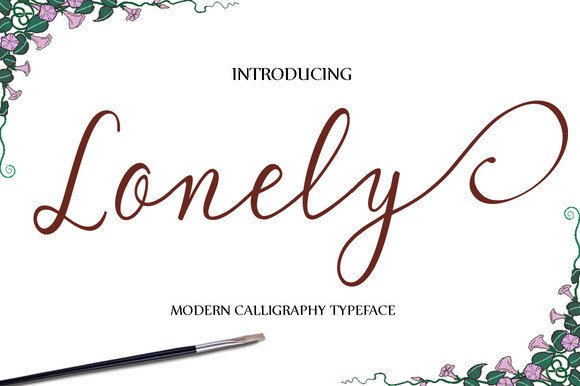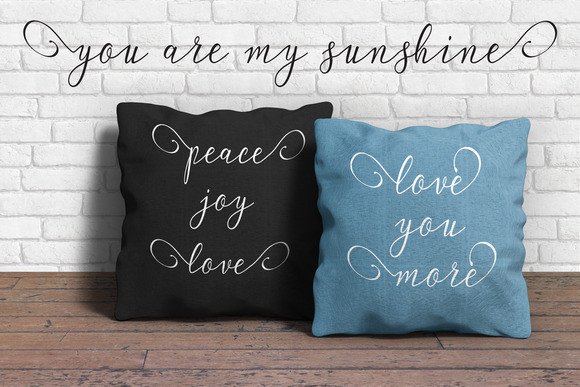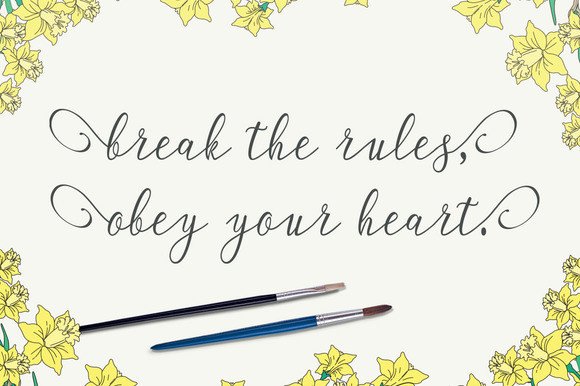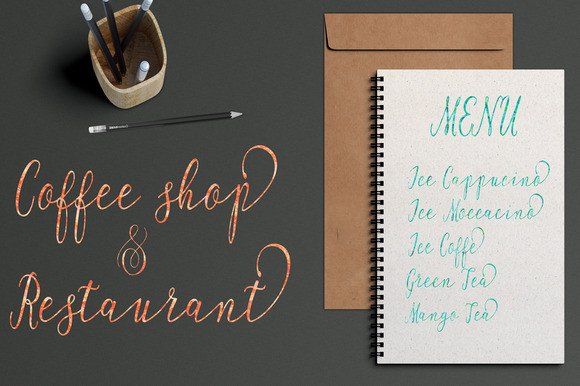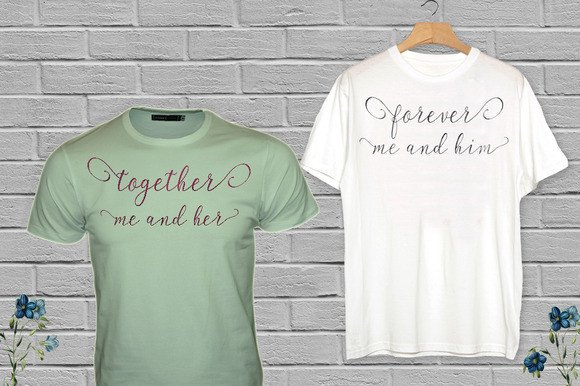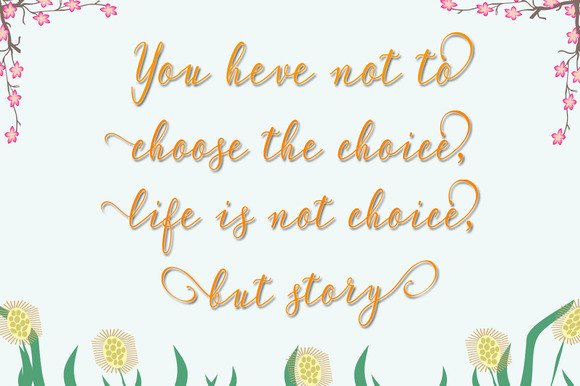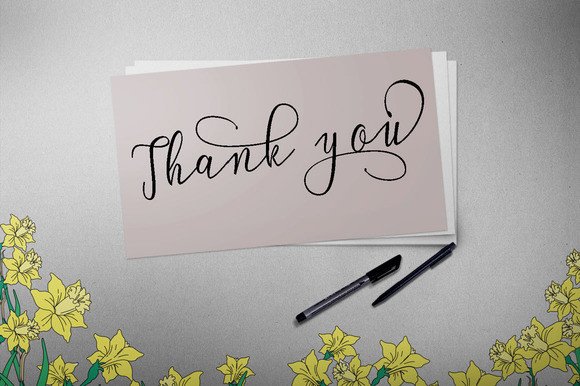
Lonely Font
About Lonely Font
Lonely is a modern typeface and has a unique form of calligraphy. The writing style is natural so it can be used for various purposes such as headings, logos, invitations, t-shirt designs, greeting cards, posters, labels, book covers, brochures, and much more!